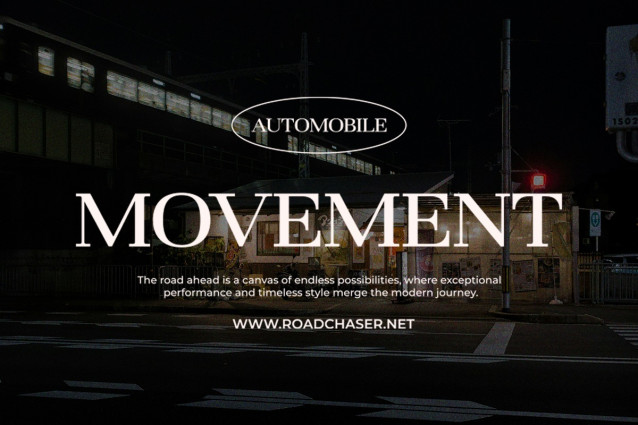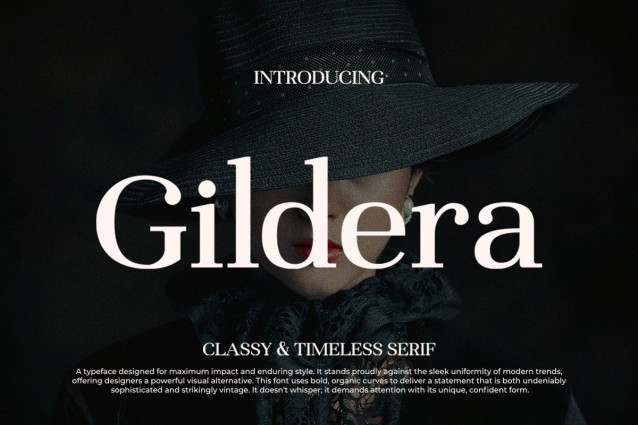
Gildera Font
Gildera Font a refined serif typeface that embodies sophistication and grace. Meticulously crafted with balanced forms and a distinctly classy appeal, ET Gildera is designed to elevate your brand from the everyday to the extraordinary.